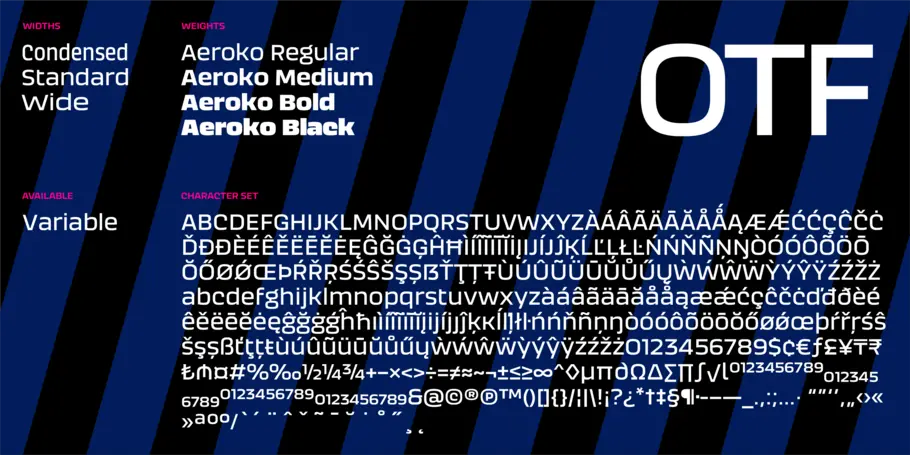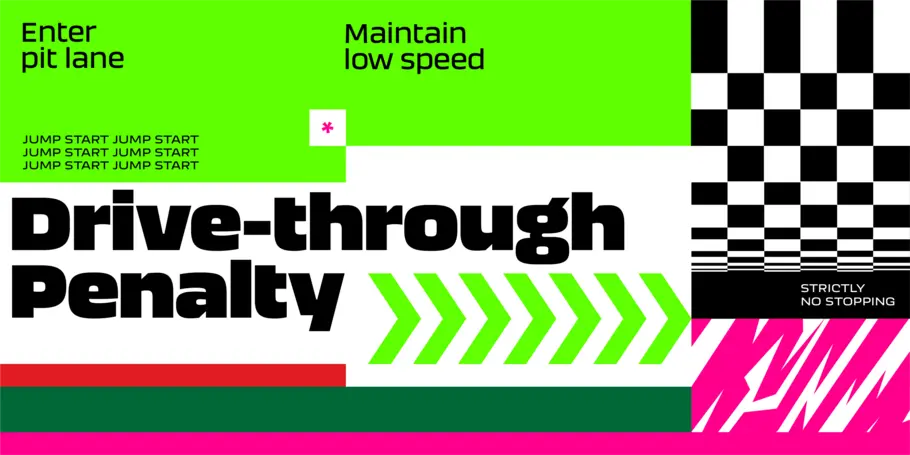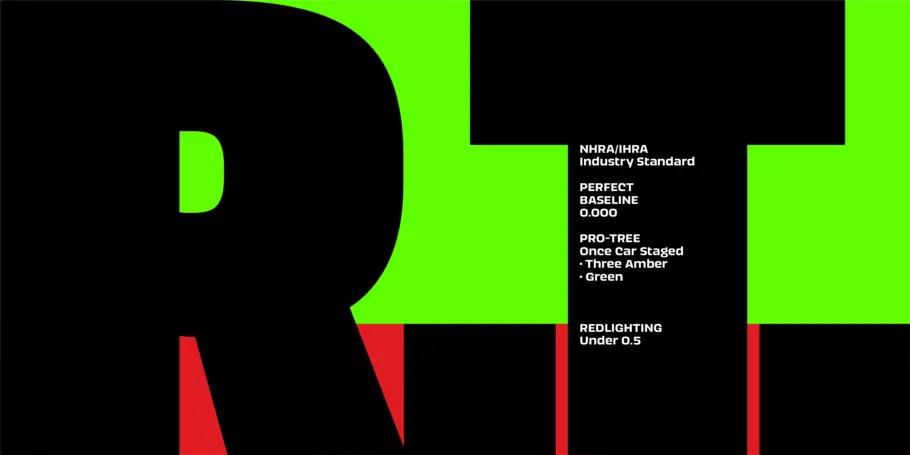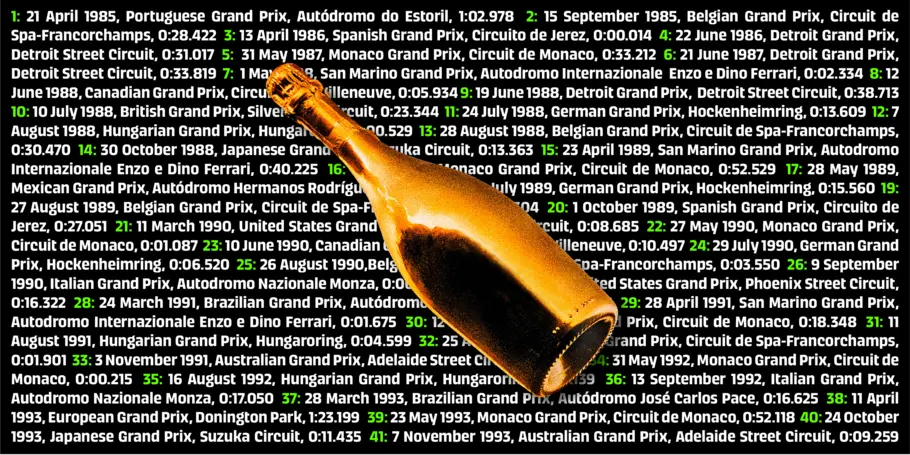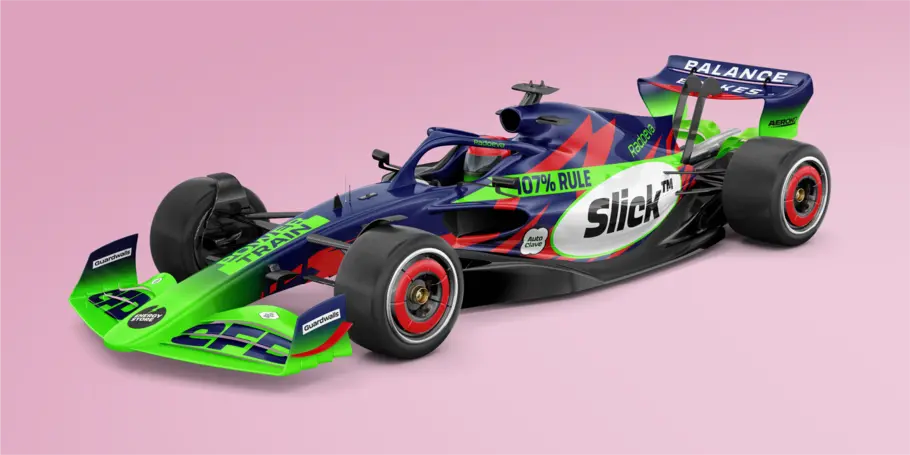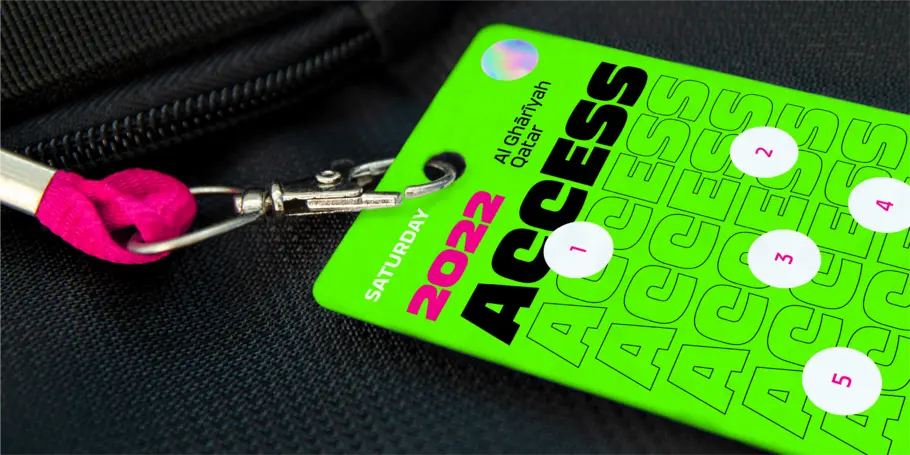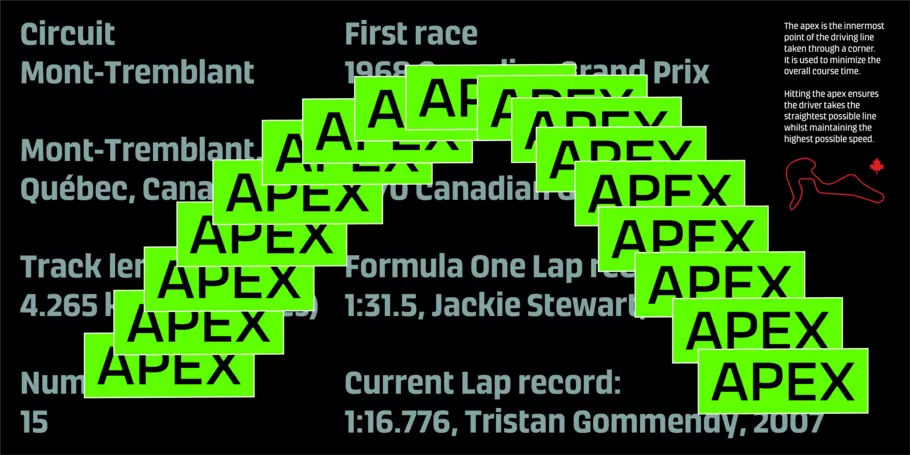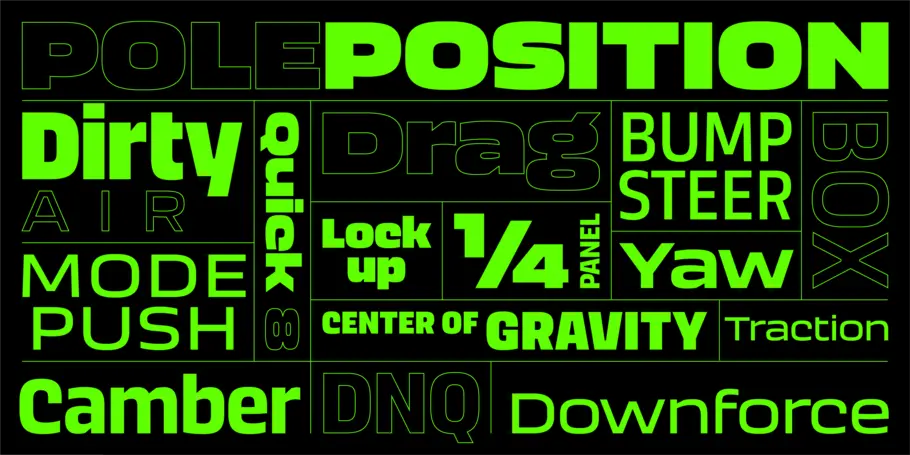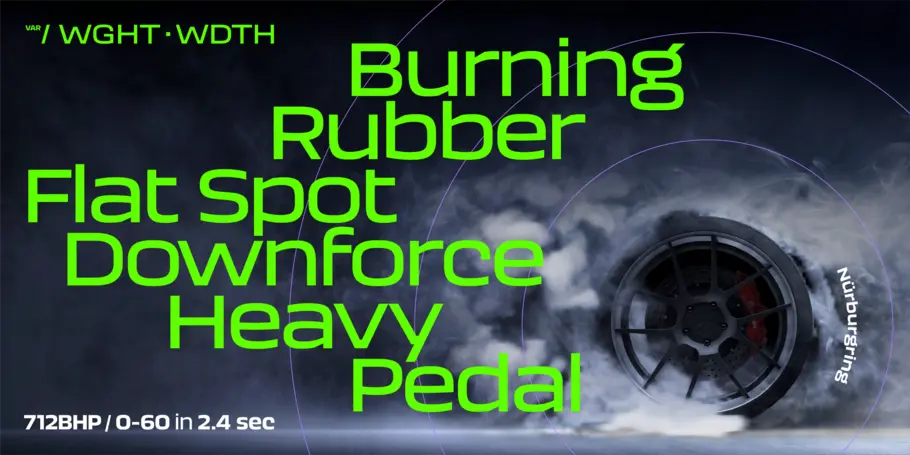
Aeroko
Leader of the pack.
Aeroko evokes confidence, this is a typeface that actively encourages you to be courageous and daring with type in your own way. Brands demand distinct and robust typography, much in the same way that drivers demand pace. Aeroko meets these demands with ease, delivering assurance and weight across a valiant aesthetic.
Meet Aeroko, a slick variable typeface that evokes grit and speed, a dynamic play, a future–present competitive edge that evokes motorsport and all progressive brand design. This is a robust type system that creates memorable brand headlines.
Powered by four display weights and three widths. Turbo-charged by a two-axes variable font. High performance brands can expect Aeroko to out-pace in every graphic condition. Aeroko is bold and assertive, it moves fast in headlines, it flexes when and where you need it. The forms are boxed and solid from Condensed to Wide, and they provide a distinct contrast when paired with rounder text fonts.
Aeroko’s secondary power unit is harnessed from the ever adaptable variable font format. Variable font technology enables vast levels of typographic scale and expression, furthermore it allows Aeroko to react instantly in any digital space to maximize results.
Aeroko evokes confidence, this is a typeface that actively encourages you to be courageous and daring with type in your own way. Brands demand distinct and robust typography, much in the same way that drivers demand pace. Aeroko meets these demands with ease, delivering assurance and weight across a valiant aesthetic.
Aeroko is designed by Krista Radoeva and the Monotype Studio.